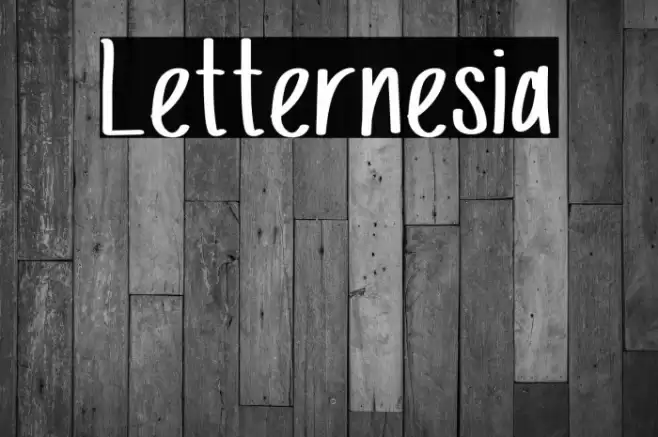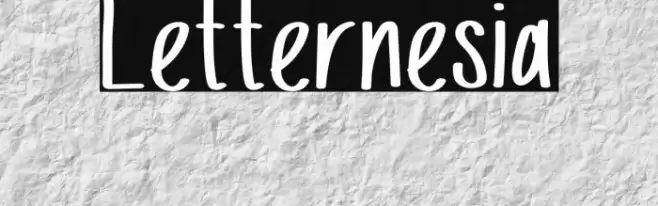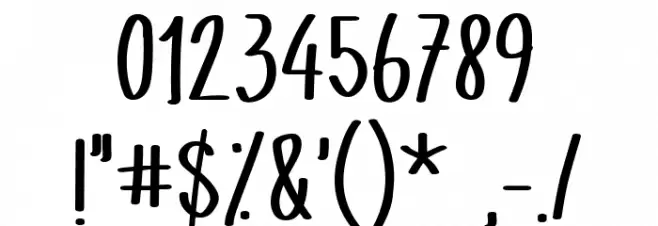
Letternesia Font
Letternesia Description
This font features a playful and casual handwritten style, characterized by its smooth and flowing letterforms. The uppercase and lowercase letters exhibit a consistent rhythm, with slightly exaggerated curves and a friendly appearance. The numerals and special characters maintain the same whimsical quality, making the font versatile for various creative applications. Its informal nature is perfect for projects that require a personal touch, such as invitations, greeting cards, or social media graphics. The font's legibility is enhanced by its balanced spacing and moderate contrast in stroke thickness, ensuring readability while maintaining its artistic flair.
A playful and casual handwritten font with smooth, flowing letterforms from Uncategorized fonts.
- Proposed Projects: Ideal for invitations, greeting cards, social media graphics, and personal branding.
- Overall Style: Casual
- Use Case: Logos, Headlines, Invitations